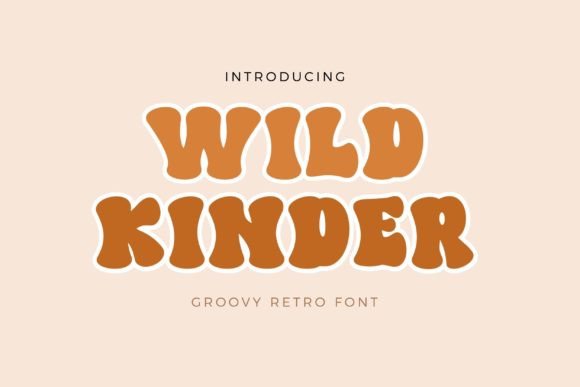
Introducing Wild Kinder Font: The Ultimate Retro Display Font for Boho-Themed Projects
In the world of typography, fonts play a crucial role in conveying the tone and aesthetic of a design project. If you’re looking for a font that embodies the free-spirited and eclectic vibe of the bohemian style, look no further than the Wild Kinder Font. This retro, bold, and fun display font is perfect for adding a cool, groovy touch to your designs, making it an ideal choice for boho-themed projects such as posters, branding materials, t-shirts, business cards, logos, quotes, and more.
What is Wild Kinder Font?
Wild Kinder Font is a unique and eye-catching display font that boasts a distinctive retro style. Its bold and playful design makes it perfect for headlines, titles, and short phrases, while its fun and quirky vibe adds a touch of personality to any design project. The font’s groovy aesthetic is reminiscent of the 1960s and 1970s, making it an excellent choice for designs that require a nostalgic or vintage feel.
Key Features of Wild Kinder Font
- Retro Style: Wild Kinder Font features a classic retro design that’s perfect for creating boho-themed projects with a nostalgic twist.
- Bold and Playful: The font’s bold and playful design makes it ideal for headlines, titles, and short phrases that require attention-grabbing typography.
- Fun and Quirky Vibe: Wild Kinder Font adds a touch of personality to any design project, making it perfect for designers who want to create unique and eye-catching designs.
- Multipurpose: This versatile font can be used for a wide range of design projects, including posters, branding materials, t-shirts, business cards, logos, quotes, and more.
10 Creative Ways to Use Wild Kinder Font
- Poster Design: Use Wild Kinder Font to create eye-catching posters for concerts, festivals, or events with a bohemian theme.
- Branding Materials: Add a touch of personality to your brand’s identity with Wild Kinder Font, perfect for creating unique logos, business cards, and letterheads.
- T-Shirt Design: Create fun and quirky t-shirt designs with Wild Kinder Font, ideal for music festivals, concerts, or boho-themed events.
- Logos and Icons: Use Wild Kinder Font to create distinctive logos and icons that reflect the free-spirited and eclectic vibe of the bohemian style.
- Quote and Inspiration Boards: Add a touch of personality to your quote and inspiration boards with Wild Kinder Font, perfect for creating visually appealing and shareable content.
- Social Media Graphics: Use Wild Kinder Font to create engaging social media graphics, including Facebook posts, Instagram stories, and Twitter headers.
- Wedding and Event Invitations: Add a touch of whimsy and romance to your wedding and event invitations with Wild Kinder Font.
- Packaging Design: Use Wild Kinder Font to create eye-catching packaging designs for products that reflect the bohemian style, such as handmade jewelry, artisanal foods, or eco-friendly products.
- Signage and Displays: Create attention-grabbing signage and displays with Wild Kinder Font, perfect for businesses, events, or exhibitions with a bohemian theme.
- Digital Products: Use Wild Kinder Font to create visually appealing digital products, such as e-books, printables, and workbooks, that reflect the bohemian style.
Benefits of Using Wild Kinder Font
- Unique and Eye-Catching: Wild Kinder Font is a distinctive and attention-grabbing font that sets your designs apart from the rest.
- Versatile: This multipurpose font can be used for a wide range of design projects, making it an excellent addition to your font library.
- Easy to Read: Despite its bold and playful design, Wild Kinder Font is easy to read, making it perfect for use in headlines, titles, and short phrases.
- High-Quality: Wild Kinder Font is a high-quality font that’s designed to deliver exceptional results in your design projects.
Tips and Tricks for Using Wild Kinder Font
- Use it Sparingly: Wild Kinder Font is a bold and attention-grabbing font, so use it sparingly to avoid overwhelming your design.
- Pair it with Other Fonts: Experiment with pairing Wild Kinder Font with other fonts to create visually appealing and harmonious design combinations.
- Experiment with Colors: Wild Kinder Font looks great in a variety of colors, so experiment with different hues and shades to find the perfect combination for your design.
- Pay Attention to Kerning: Make sure to adjust the kerning of Wild Kinder Font to ensure that it’s evenly spaced and visually appealing.
Wild Kinder Font is a unique and eye-catching display font that’s perfect for adding a cool, groovy touch to your boho-themed design projects. With its bold and playful design, fun and quirky vibe, and versatility, this font is an excellent choice for designers who want to create visually appealing and attention-grabbing designs. Whether you’re designing posters, branding materials, t-shirts, or digital products, Wild Kinder Font is sure to deliver exceptional results.